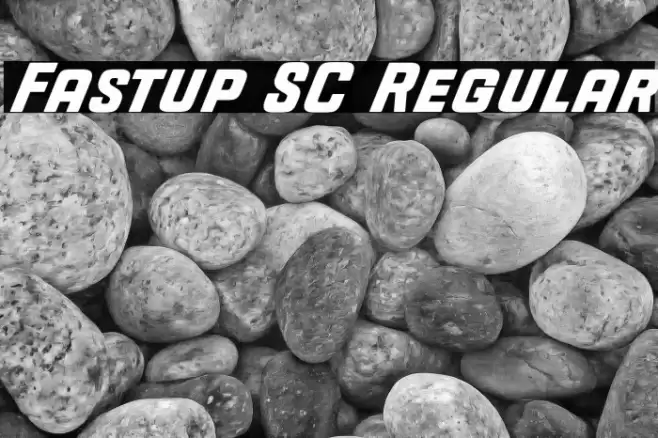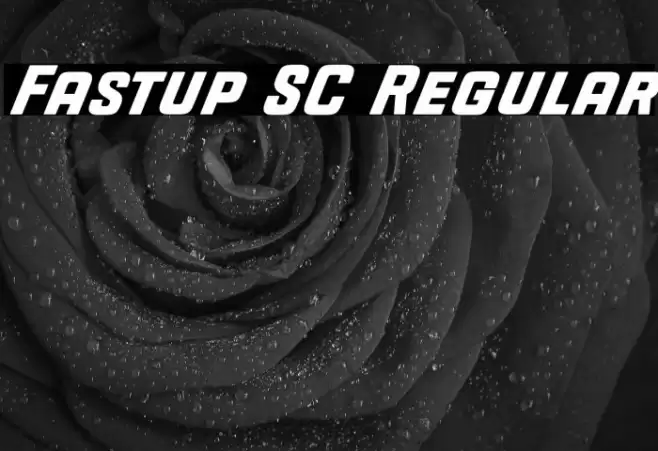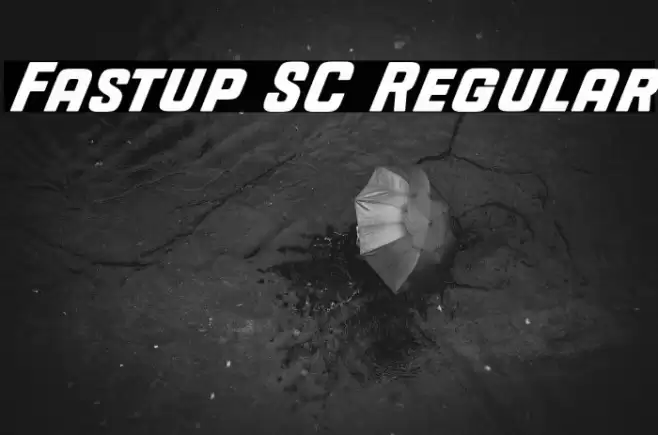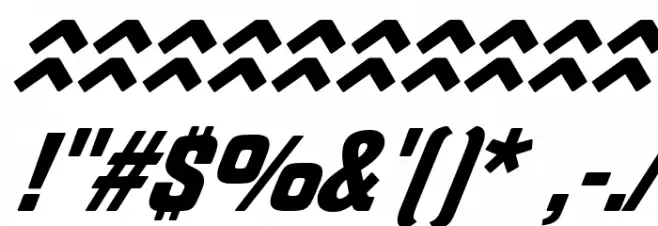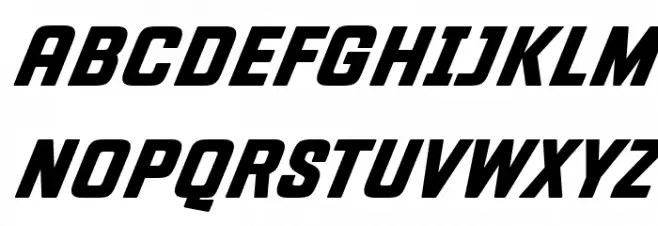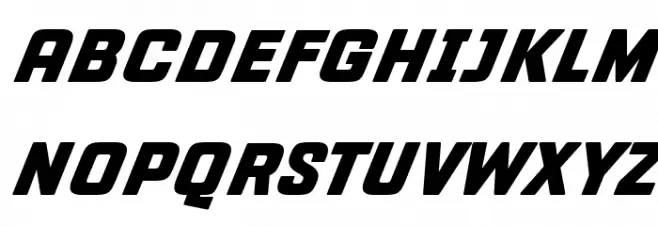
Fastup SC Regular Font
Fastup SC Regular Description
This font features a bold and dynamic style with a strong presence. The characters are designed with a forward-leaning slant, giving a sense of motion and energy. The strokes are thick and consistent, providing a robust and impactful appearance. The uppercase and lowercase letters maintain a uniform width, enhancing readability while retaining a distinctive look. The numerals and special characters are crafted to match the overall aesthetic, ensuring cohesion across all elements. This font is ideal for projects that require a bold statement, combining modern design with a touch of assertiveness.
A bold, slanted font with thick strokes and a dynamic, energetic style from Uncategorized fonts.
- ( Fastup Regular and Small Caps is available in two weights (Regular and Bold), geometric design fonts, with a rounded finish on the vertices that provides warmth, with short ascenders and descenders offers a more compact set of letters, the 22° inclination FREE )
- Proposed Projects: Ideal for sports branding, action-themed posters, dynamic logos, and modern advertising campaigns.